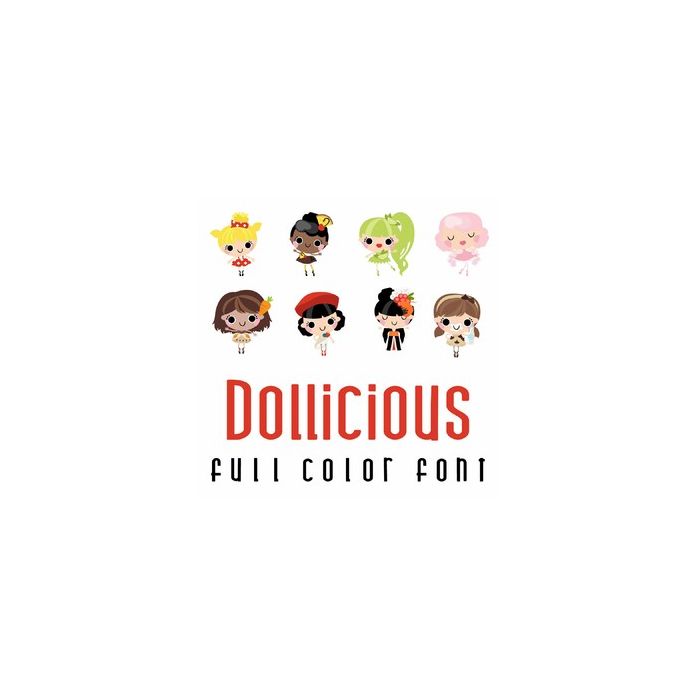
This adorable full color doodlebat font features cute kawaii style dolls in foodie fashions. Perfect for cards, crafts, gifts, decor, scrap book pages, planner stickers and more!